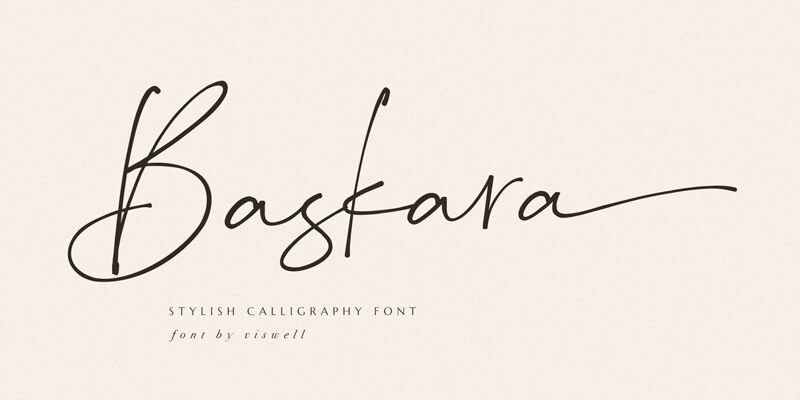
Baskara Regular
Baskara Regular, a stylish calligraphy font designed by Agam Rahmadan, is an eye-catching thin font perfect for creative projects. With its unique style, Baskara is ideal for invitations, logos, titles, flyers and more.